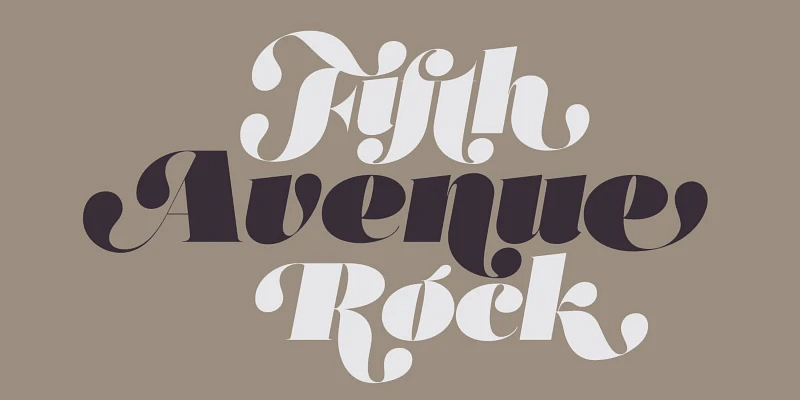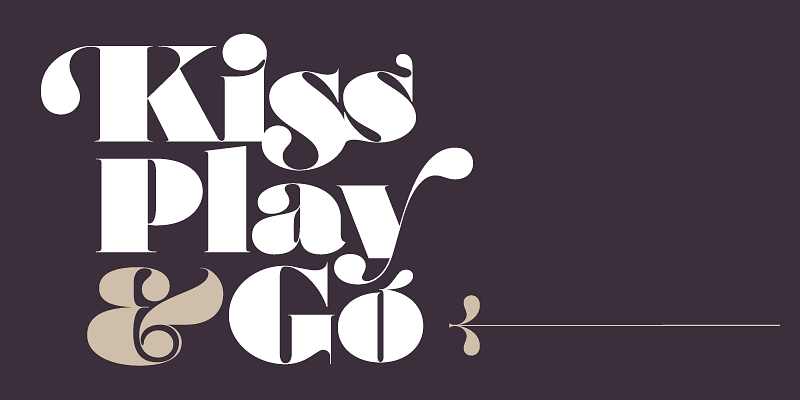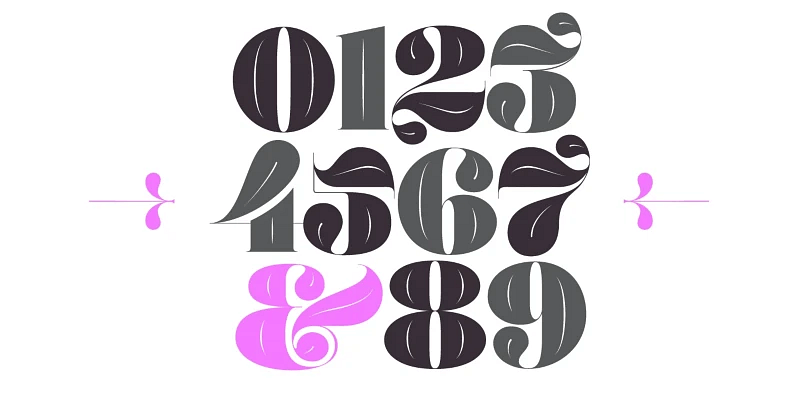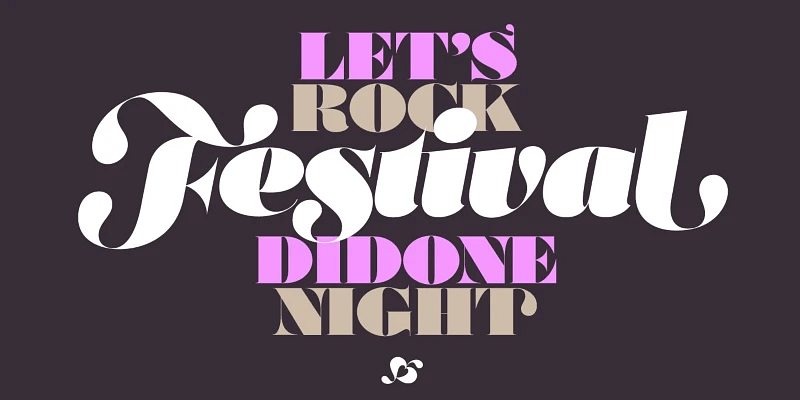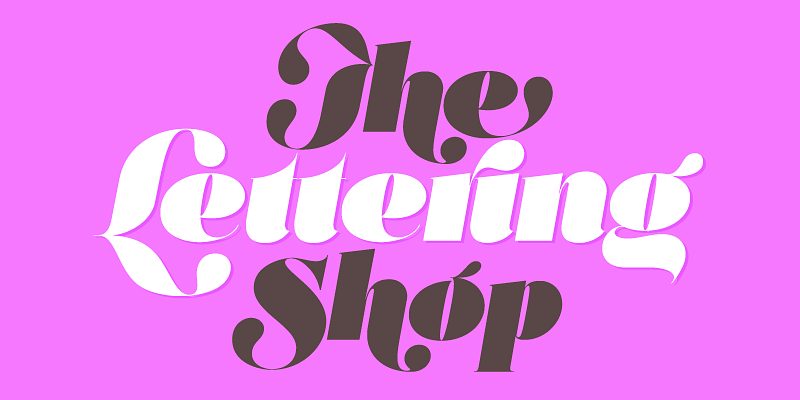
Posh is bold, glamorous, and just a little over-the-top—in all the right ways. This high-contrast Didone is packed with elegant curves, swashy alternates, and serious attitude. With styles including Regular, Inline, Italic, and Capitals, Posh was made for fashion campaigns, beauty packaging, upscale event invites, and anywhere you want your type to steal the spotlight. Because sometimes, more is more.